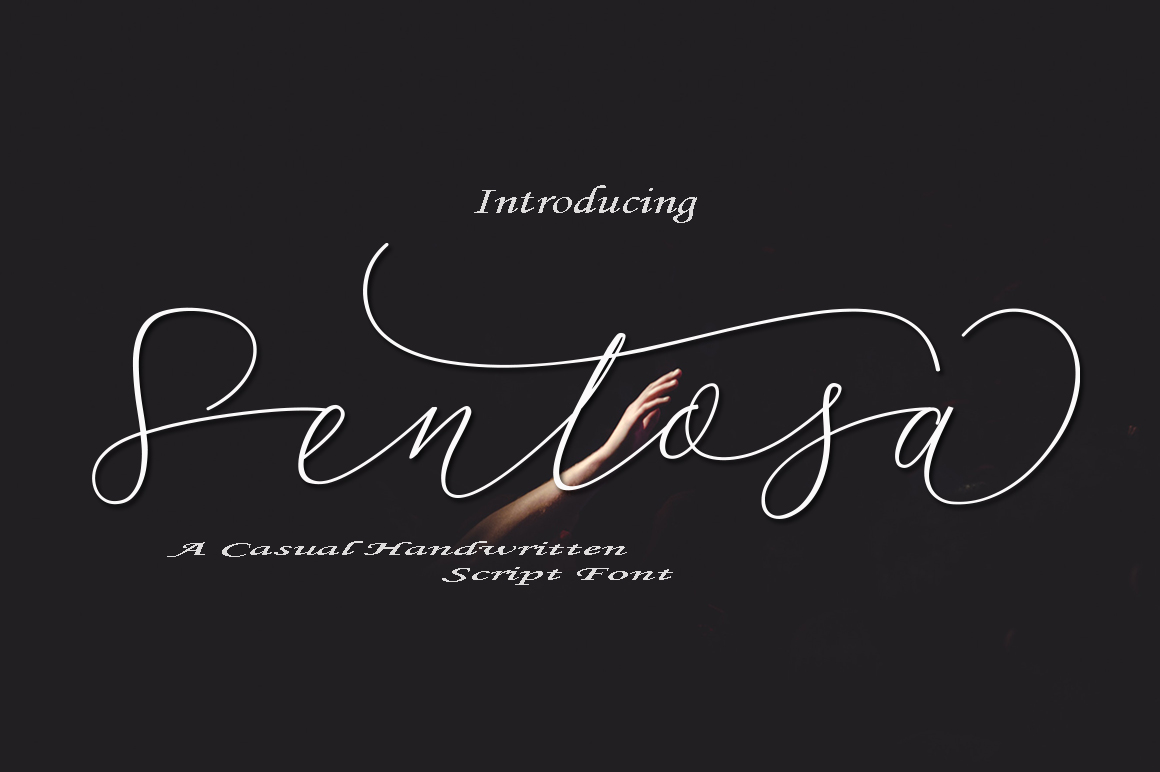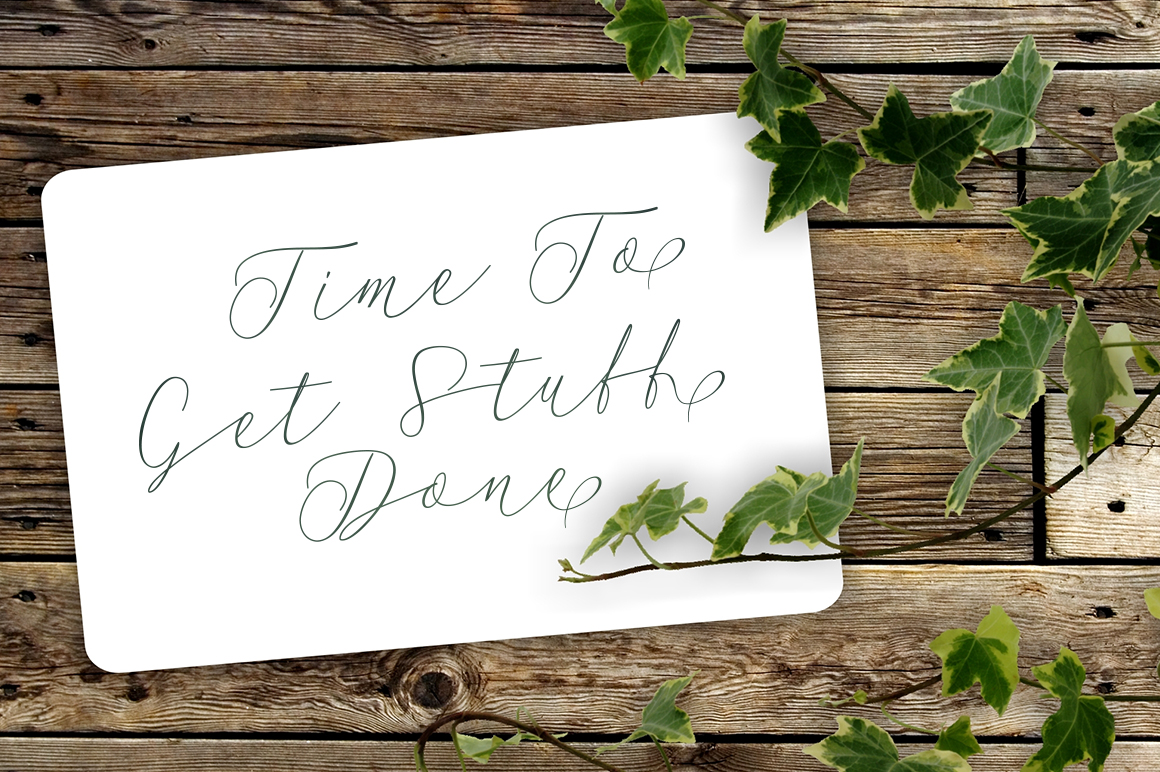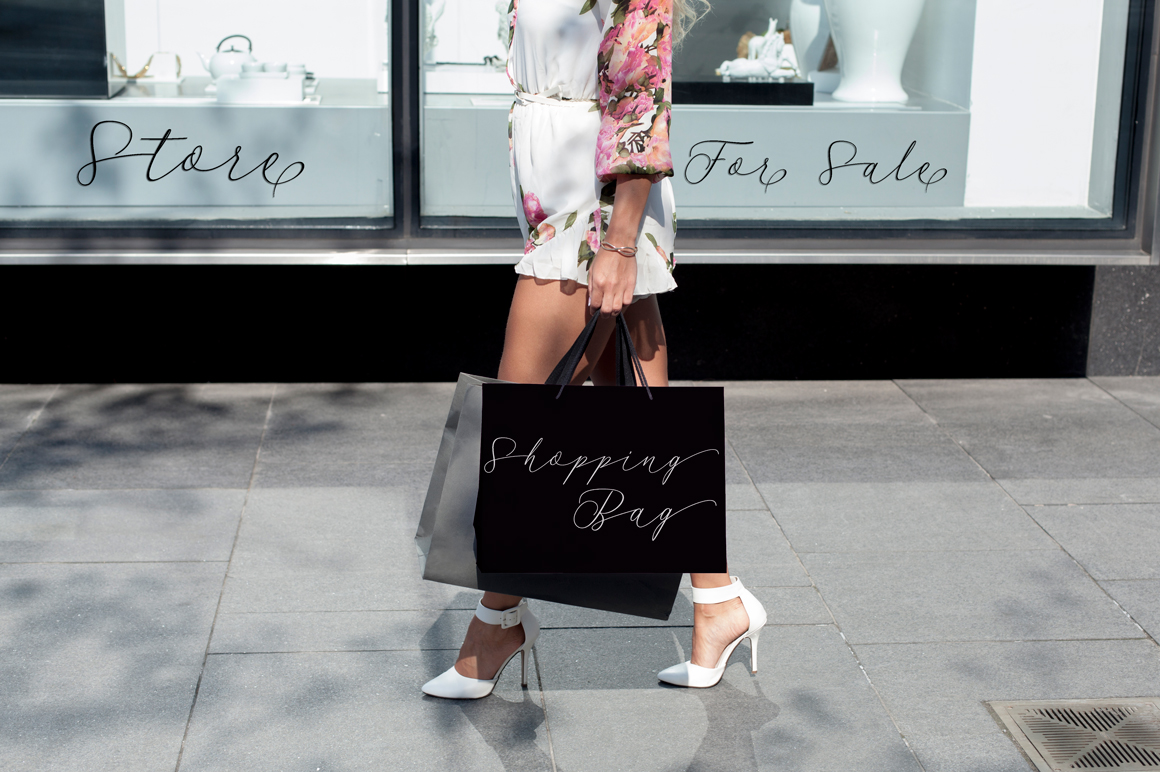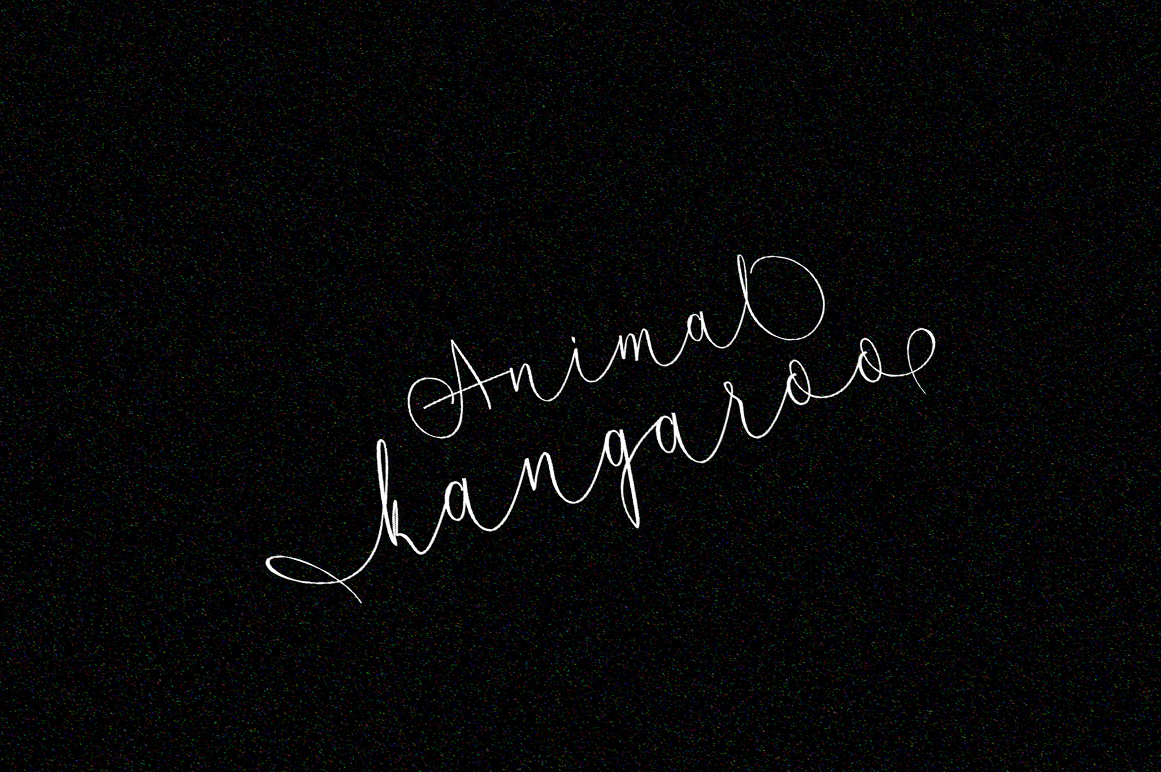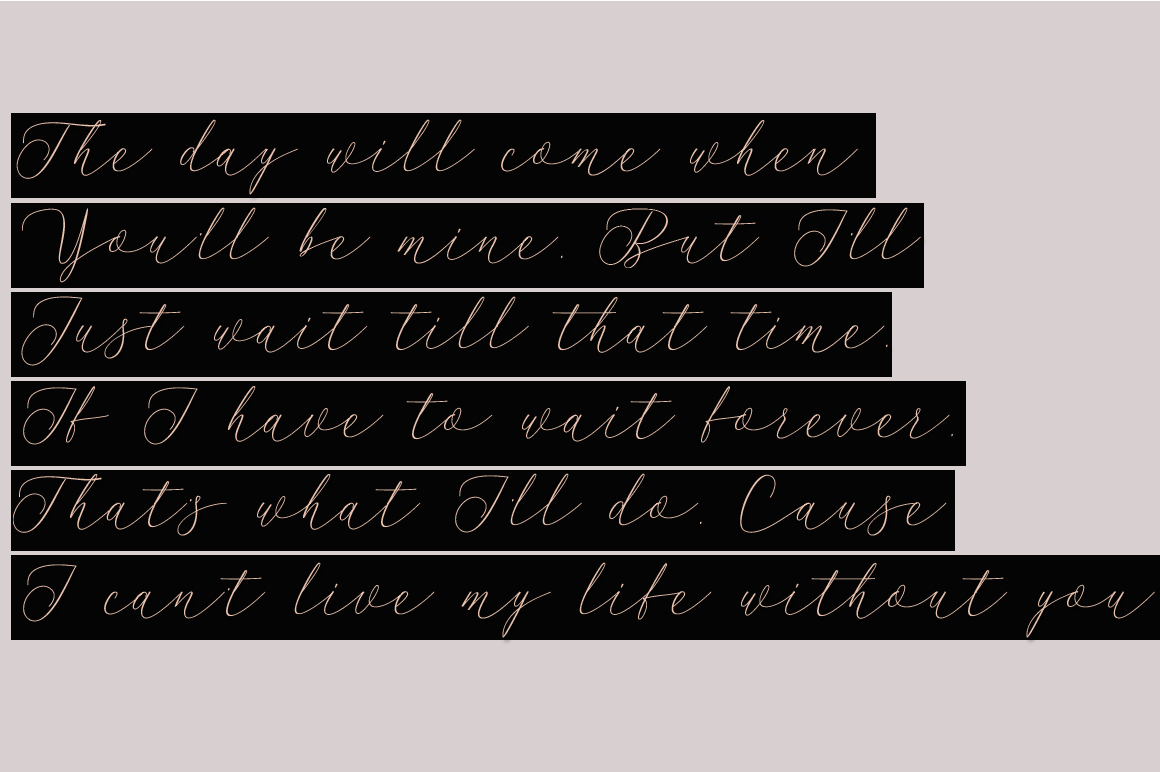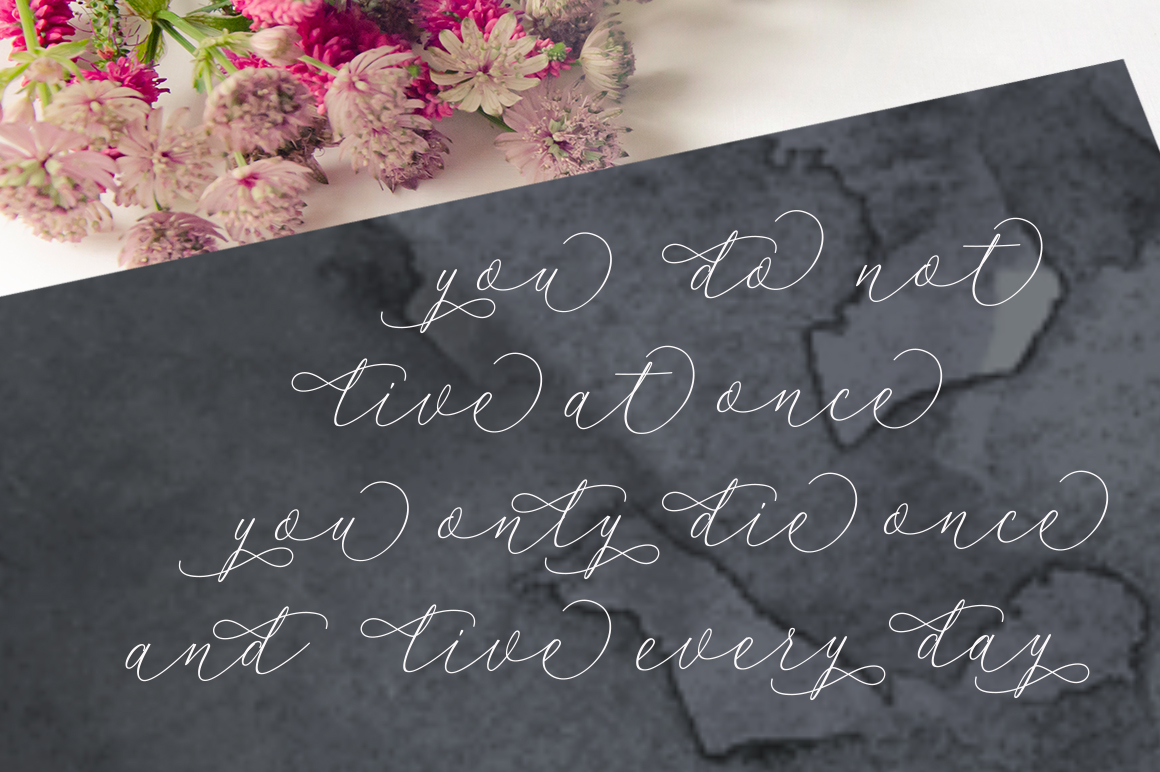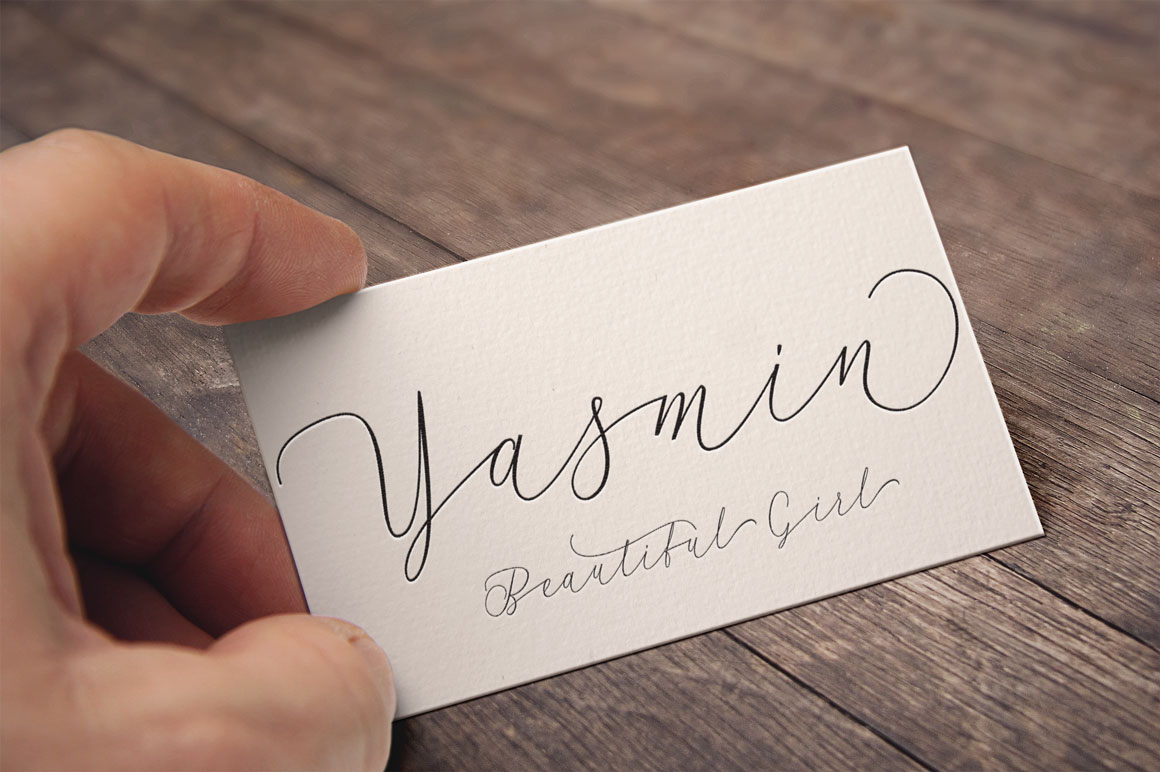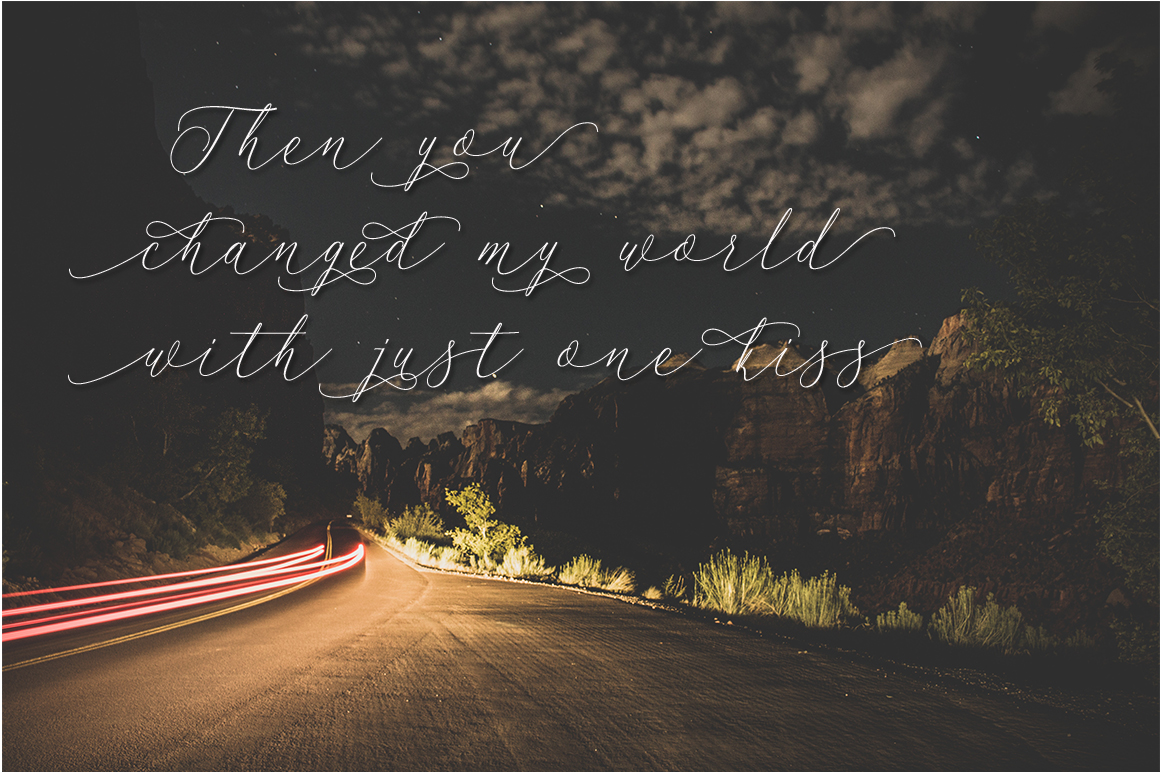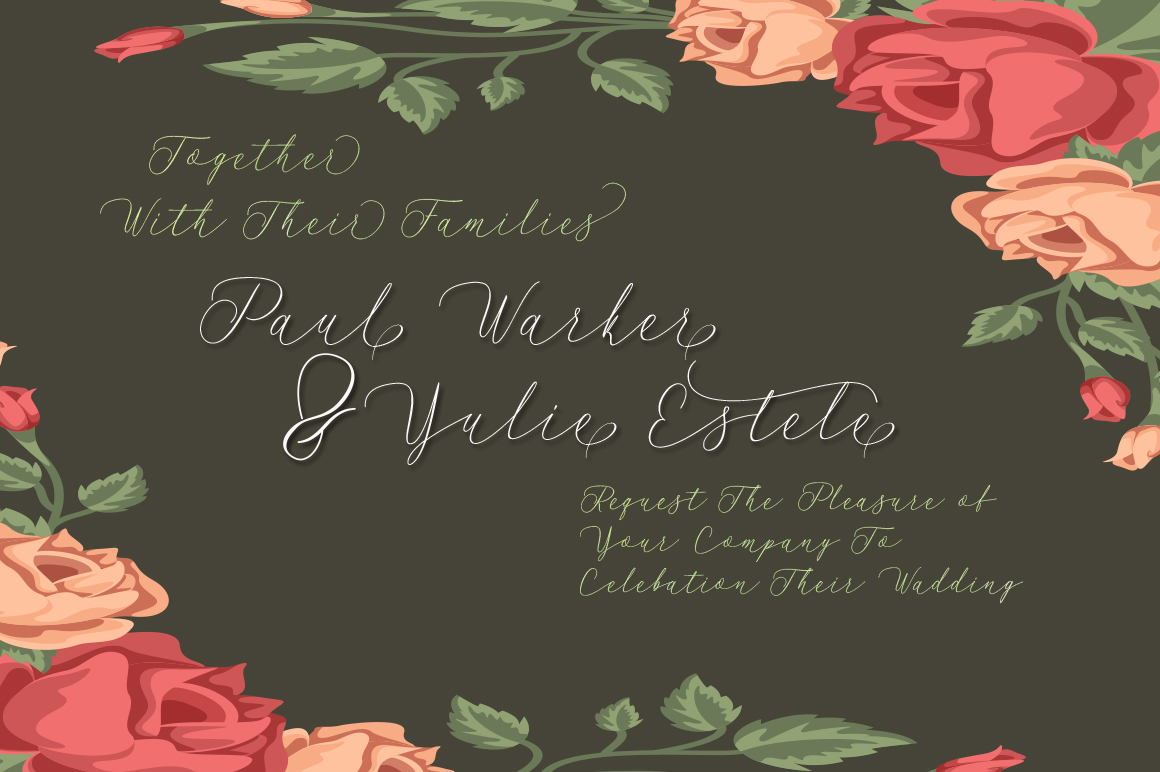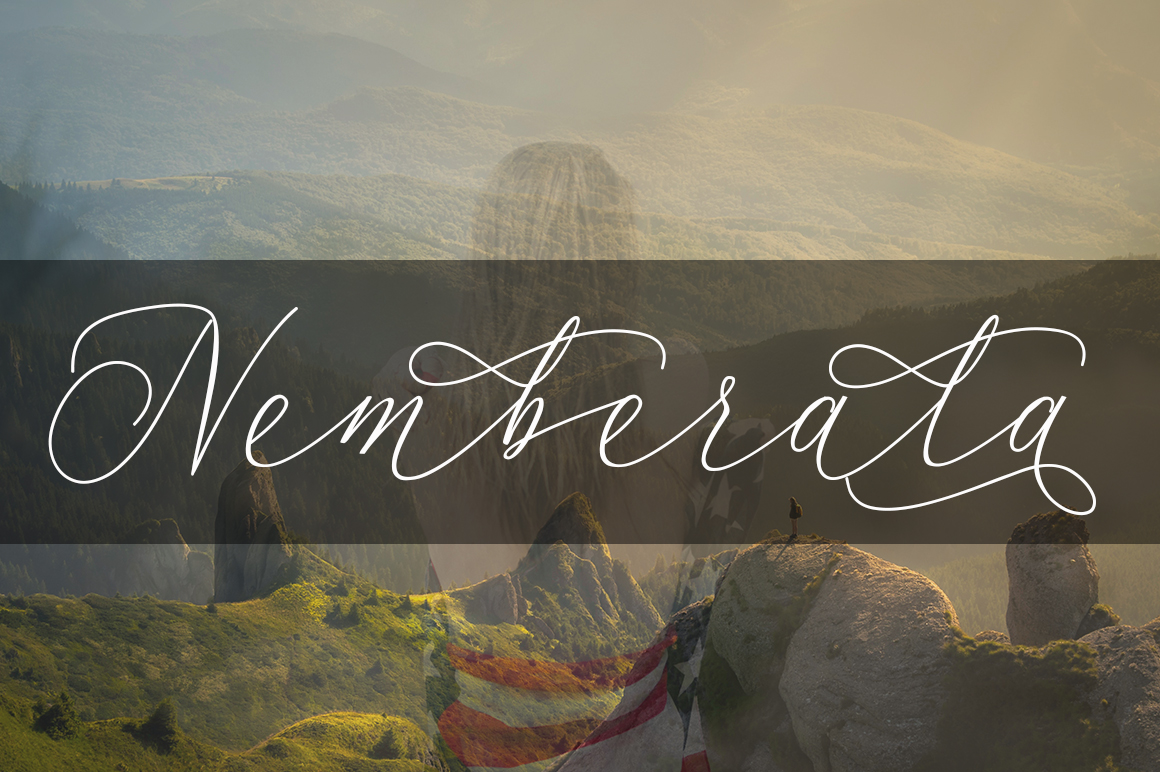
Sentosa Font
About Sentosa Font
Sentosa is a stunning font that is completely handwritten and features a monoline style.
It’s perfect for invitations, signature designs, banners, social media and much more!